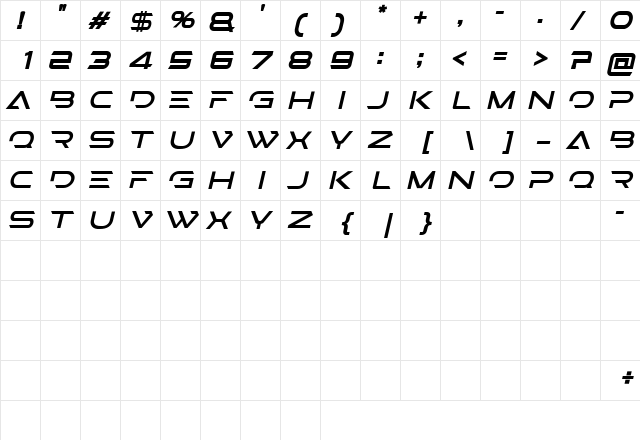
STEPS Outline Italic
Design Context for STEPS Outline Typeface
STEPS Outline is built around its visual character rather than neutral utility — its distinctive forms are designed to make an impression at display sizes. The dynamic lean of this cut emphasises speed and emphasis in any layout.
Font Pairing: Pair with a clean neutral sans-serif for body copy to let STEPS Outline's character lead without overwhelming the composition.
Pro Tip: Use STEPS Outline exclusively at display sizes — it was designed to be seen, not read at length. Let a neutral companion handle body copy.